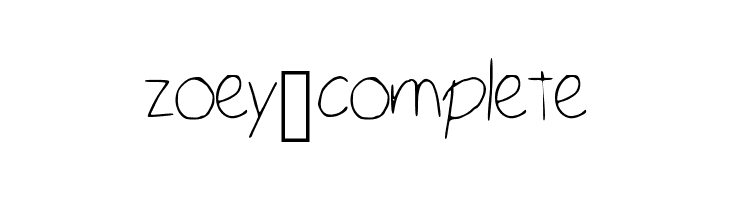
( Fonts by billyargel.blogspot.com - Billy Argel )
A dynamic and expressive script font with elegant, sweeping strokes.
( Fonts by www.haroldsfonts.com )
A bold, italicized font with a double-line shadow effect for a modern, dynamic look.
( Fonts by www.haroldsfonts.com )
A bold, decorative font with intricate face illustrations within each letter.
( Fonts by billyargel.blogspot.com - Billy Argel )
A bold, hand-drawn font with a textured, sketch-like appearance.
( Fonts by www.norfok.com - Norfok® Incredible Font Design - Thomas W. Otto )
A bold, abstract font with tribal-inspired curves and angles.
( Fonts by billyargel.blogspot.com - Billy Argel )
A bold, textured script font with a dynamic, brush-like appearance.
( Fonts by billyargel.blogspot.com - Billy Argel )
An elegant, ornate script font with flowing, decorative letterforms.
( Fonts by billyargel.blogspot.com - Billy Argel )
An ornate and whimsical font with decorative swirls and playful skull illustrations.
( Fonts by billyargel.blogspot.com - Billy Argel )
An ornate and decorative script font with intricate swirls and flourishes.
( Fonts by www.fenotype.com )
A bold, grunge-style font with a distressed and chaotic aesthetic.
( Fonts by www.fenotype.com )
A bold, distressed decorative font with a grunge aesthetic.
( Fonts by www.fenotype.com )
A bold, distressed font with a grunge aesthetic and geometric structure.
( Fonts by www.fenotype.com )
A bold, grungy font with splatter elements and angular letterforms.
( Fonts by www.fenotype.com )
A bold, distressed font with a gritty, urban aesthetic.
( www.typoets.org )
A bold, geometric display typeface with a modern and edgy style.
( Fonts by junkohanhero )
Invalid font representation with only 'X' characters.
A playful, bold handwritten script font with smooth, rounded strokes.
A playful, hand-drawn font with a sketch-like, textured appearance.
An ornate and elegant script font with intricate flourishes and high contrast strokes.
A bold, brush-style script font with a dynamic, hand-drawn appearance.
A bold, hand-drawn font with a textured, sketch-like appearance.
( Manuel Lage - napojozare.jimdo.com )
A playful, handwritten font with thin, irregular strokes and a casual style.
( iMM - Gianka Petracco - www.instagram.com/immcreativity/ )
A bold, futuristic font with geometric shapes and sharp angles.
( Character )
A whimsical, hand-drawn font with a vintage, artistic flair.
( Giedi Prime )
A geometric, abstract font with a futuristic and mechanical style.
( Giedi Prime )
A decorative and abstract font with geometric shapes and intricate patterns.
( Giedi Prime )
A mystical, rune-like font with bold, flowing characters.
( Nght's Place - www.crosswinds.net/~nghtmvs/font/fonts1.html )
A whimsical font styled to resemble candles, complete with wax drips and flames.
( Fonts by Malre )
A bold, classic serif font with high contrast and elegant details.